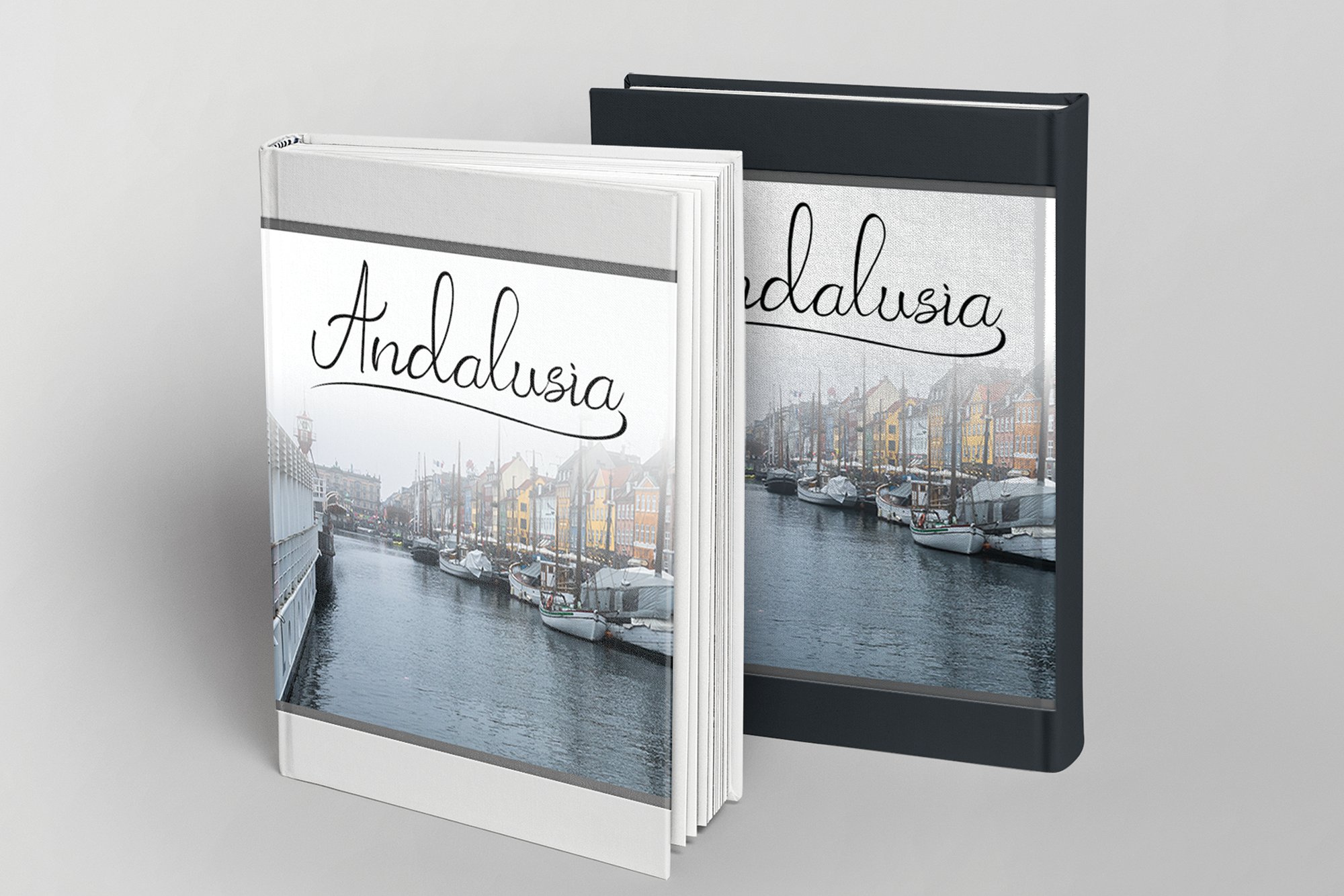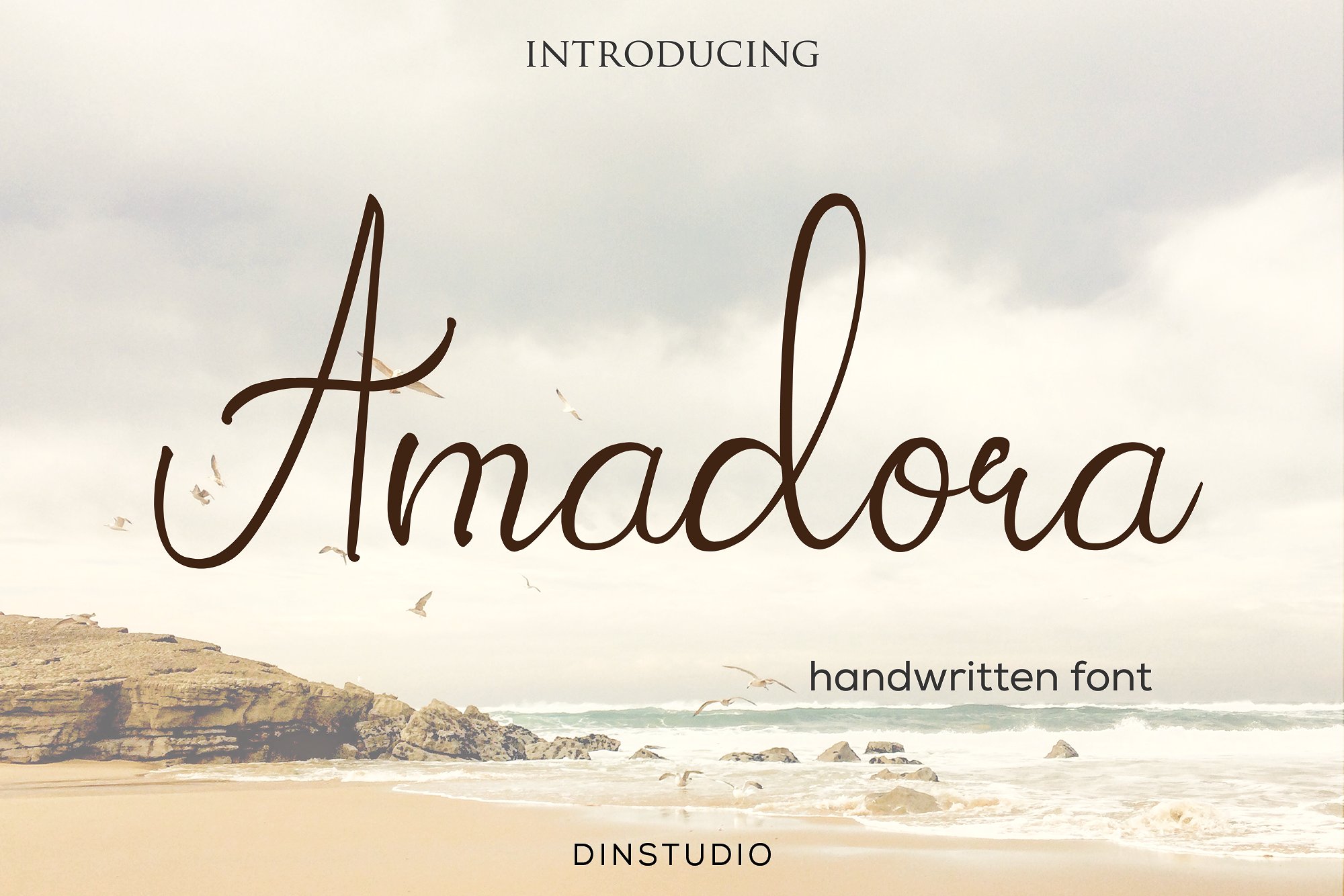
Amadora Handwritten
Amadora Handwritten Font
Amadora Handwritten Script is a fun and natural handwritten  with regular and script which is perfectly used for your fun & casual project.
amadora is a beautiful handwritten font.